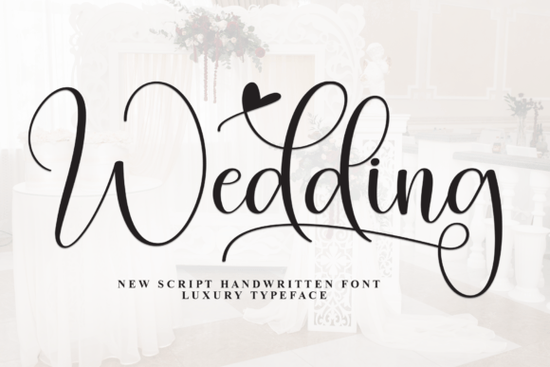
If you've ever struggled to find a typeface that feels both personal and polished, the Wedding Font is worth a close look. It's a flowing handwritten script font designed to bring a refined, calligraphic feel to invitations, branding, greeting cards, and more. Each letter carries the kind of careful, hand-drawn detail that's hard to replicate with standard typefaces.
What makes a handwritten font feel elegant instead of messy?
Not every script font reads as sophisticated. Some look casual or rushed, which works for informal projects but falls flat on wedding stationery or luxury branding. The difference usually comes down to letter spacing, stroke consistency, and how naturally the characters connect.
Wedding Font nails this balance. Its characters flow into one another the way real calligraphy does with intentional curves and graceful transitions. It doesn't try too hard to look fancy. Instead, it has a natural rhythm that makes longer words and phrases easy to read, even at smaller sizes.
That readability matters more than people think. A beautiful script is useless on a save-the-date card if guests can't read the names.
Where does this typeface work best?
Because of its traditional calligraphy roots, Wedding Font fits a wide range of creative projects:
- Wedding invitations and save-the-dates its most obvious use, and where it truly shines
- Greeting cards anniversary, Valentine's Day, or thank-you cards
- Logo design for boutiques, florists, photographers, or bakeries wanting a personal touch
- Print-on-demand products mugs, tote bags, and wall art with romantic quotes
- Social media graphics especially for brands in the beauty, fashion, or lifestyle space
- Event signage table numbers, welcome signs, and menu cards
For small businesses working on branding materials, a typeface like this adds personality without looking unprofessional. It signals warmth and attention to detail two things customers notice.
Can you use it for print-on-demand?
Absolutely. If you sell on platforms like Etsy, Redbubble, or Amazon Merch, a well-chosen script font can set your designs apart from competitors using the same overused typefaces. Wedding Font pairs especially well with floral illustrations, watercolor textures, and minimalist layouts.
How does it compare to other script fonts?
Wedding Font sits in the "classic calligraphy" lane graceful, flowing, and traditional. But depending on your project, you might want something with a slightly different personality. Here are a few worth exploring:
- Gita Lian a delicate script with a slightly more modern feel, great for feminine branding
- Frisky Cat more playful and energetic, ideal for casual or whimsical designs
- Detourne a bold, expressive option when you want your type to make a stronger statement
Each of these has its own strengths. The key is matching the font's personality to the mood of your project. A formal wedding suite needs something different than a fun birthday card, and having a few script fonts in your library gives you flexibility.
What should you pair it with?
Script fonts rarely work well on their own for body text. For the best results, combine Wedding Font with a clean serif or sans-serif typeface for supporting text. Think of it this way:
- Wedding Font for headings, names, or short decorative phrases
- A simple serif like Garamond or Playfair Display for body copy
- A light sans-serif like Montserrat for smaller details like dates and addresses
This layered approach keeps your designs readable while still feeling cohesive. It also gives each text element a clear role, which makes layouts look more intentional.
Tips for getting the most out of script fonts
- Don't use all caps. Most handwritten scripts lose their charm when forced into uppercase. Stick to lowercase or title case.
- Watch your letter spacing. Tightening the tracking slightly can help connected scripts look more natural.
- Test at multiple sizes. A font that looks stunning at 72pt might blur together at 12pt. Always check readability.
- Use it sparingly. A single line in a beautiful script has more impact than a whole page of it.
- Pair with contrast. Scripts work best next to something structured and geometric.